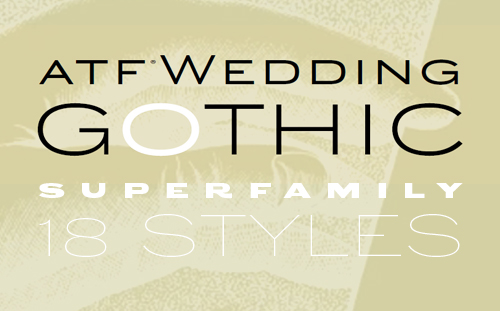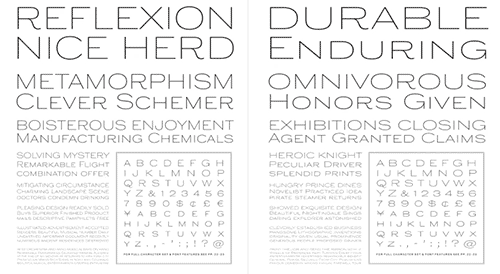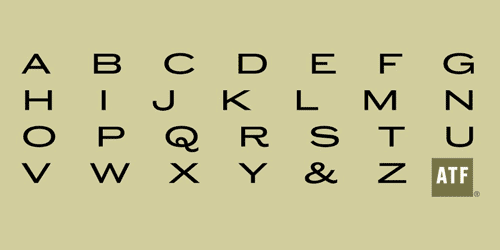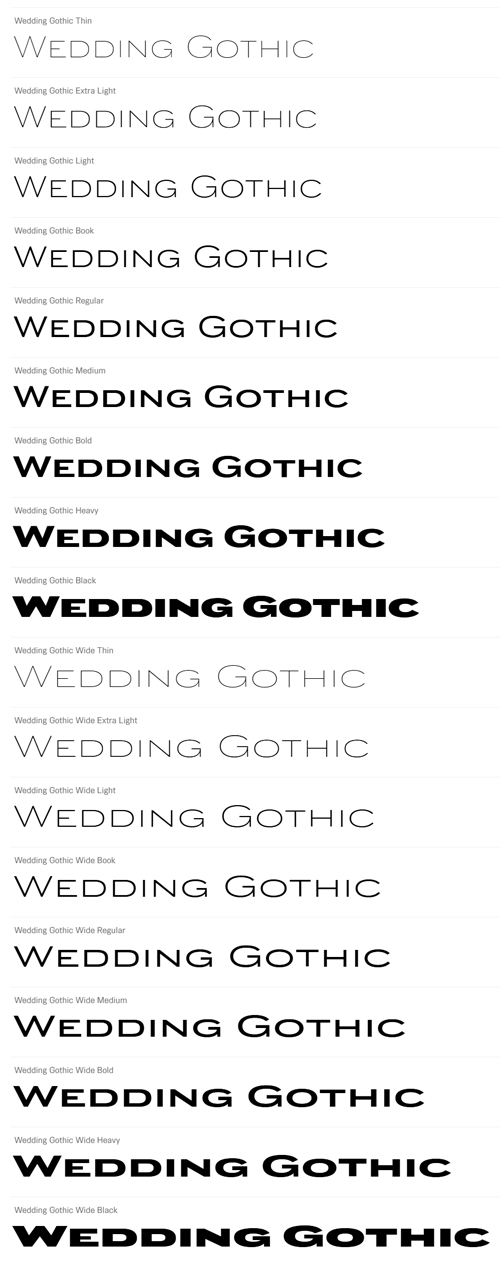
Wedding Gothic Superfamily - 18 Styles
Wedding Gothic is an engravers gothic sans serif font family.
It gives a vintage look and will take your typography
from an airy elegance to a bombastic shout.
- Sporting broad, unadorned caps and just a dash of flair, ATF Wedding Gothic™ is like an engravers gothic at a black tie affair. It comes from the same tradition as other social gothics from the turn of the twentieth century, such as Engravers Gothic and Copperplate. But where these are the faces of business cards and common announcements, ATF Wedding Gothic is a special occasion. Its swaying ‘R’ and ‘Q’, its characterful figures, and spritely-yet-sturdy insouciance make ATF Wedding Gothic well suited for tasteful engagements of all sorts.